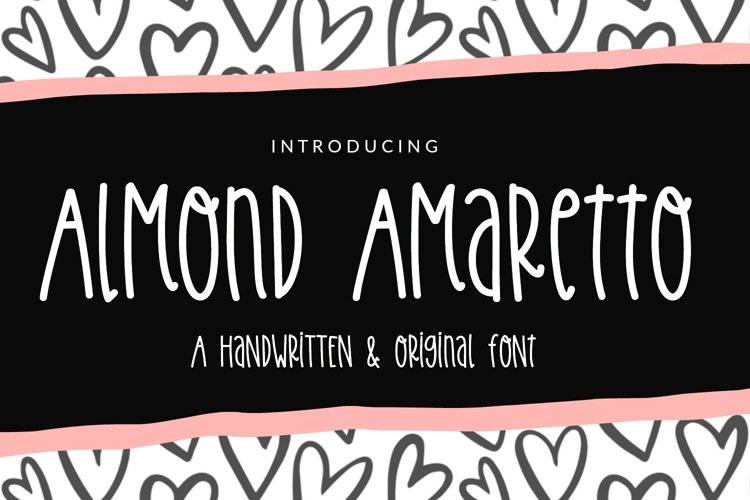
Almond Amaretto Handwritten Font
ABOUT THIS FONT
Meet Almond Amaretto Handwritten Font! This handwritten font is playful, charming and perfect for many design projects! I've made this font as smooth as possible, reducing the amount of nodes in each glyph to ensure optimal cutting with Cricut, Silhouette or other craft machines.